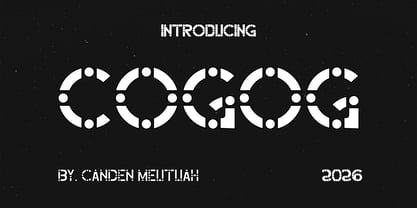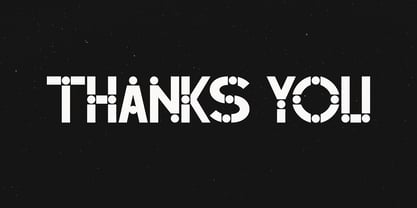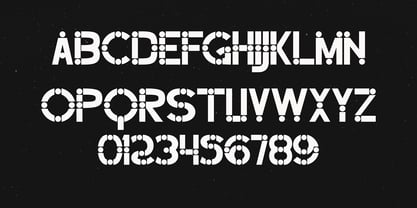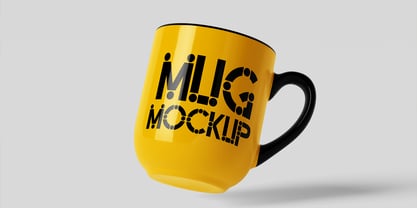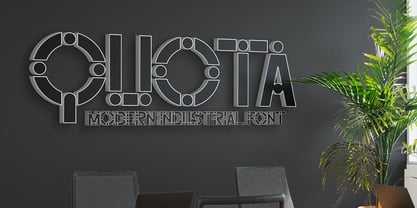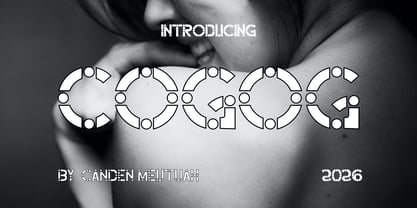
Cogog
by Canden Meutuah
The Cogog Font Family was designed by Canden Meutuah and published by Canden Meutuah. Cogog contains 1 styles. More about this family
Immerse yourself in a world of futuristic aesthetics with our modern, geometric display font – reflecting a distinct stenciled circle design. This avant-garde typeface is the perfect choice for crafting a tech-savvy brand identity, designing ingenious tech logos, or creating thrilling sci-fi posters. Rely on its high-impact typography to breathe life into your unique creative vision.
Designers: Canden Meutuah
Foundry: Canden Meutuah